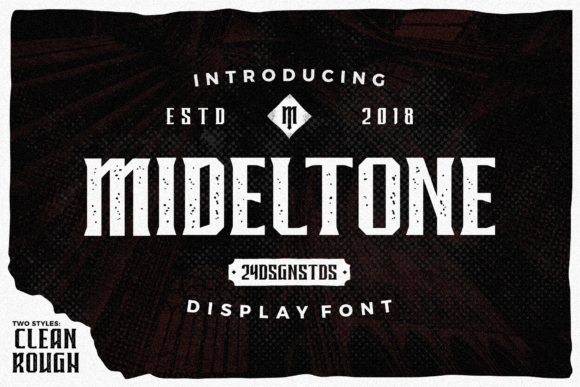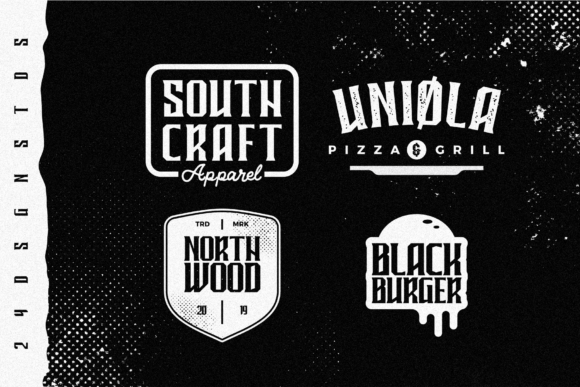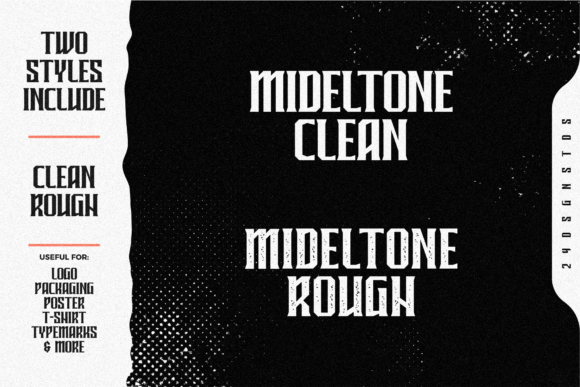
Mideltone Font
Mideltone is a strong display font. It comes in two unique font styles and it will elevate a wide range of design projects to the highest level, be it branding, headings, wedding designs, invitations, signatures, logos, labels, and much more!